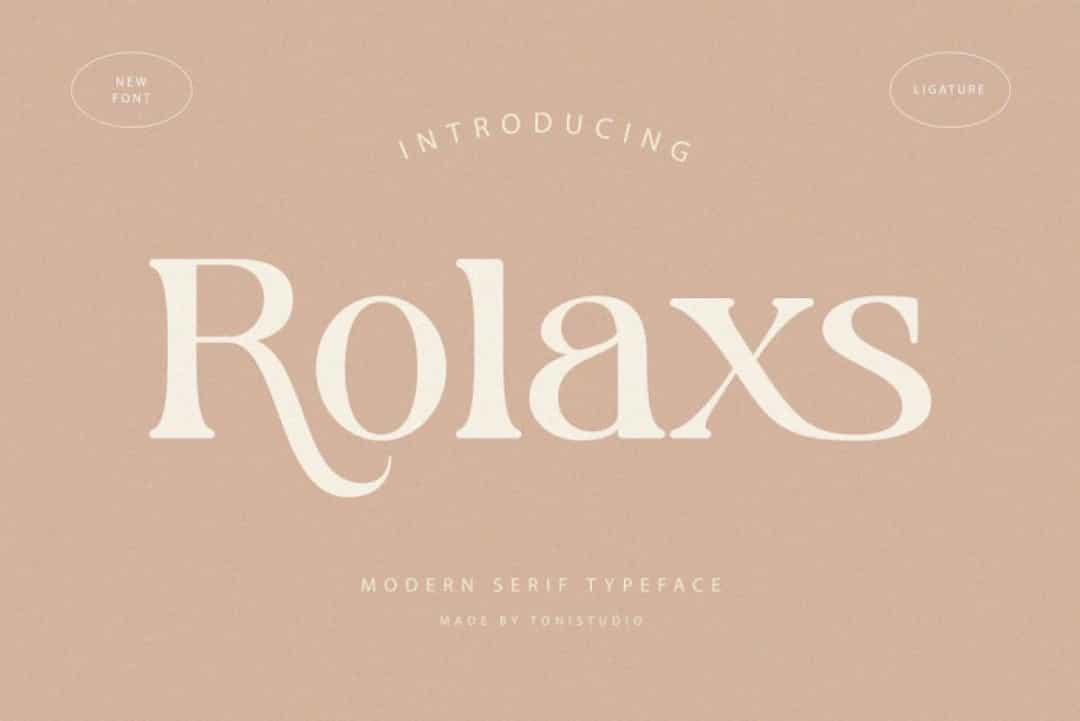
Rolaxs is a contemporary serif typeface featuring a thicker appearance with more lines, yet is bold at the point where both sides meet – giving it both modernity and an old-fashioned vibe. Comes equipped with biners to assist in designing beautiful quotes, posts or blog entries as well as branding projects, magazine images wedding invitations etc.